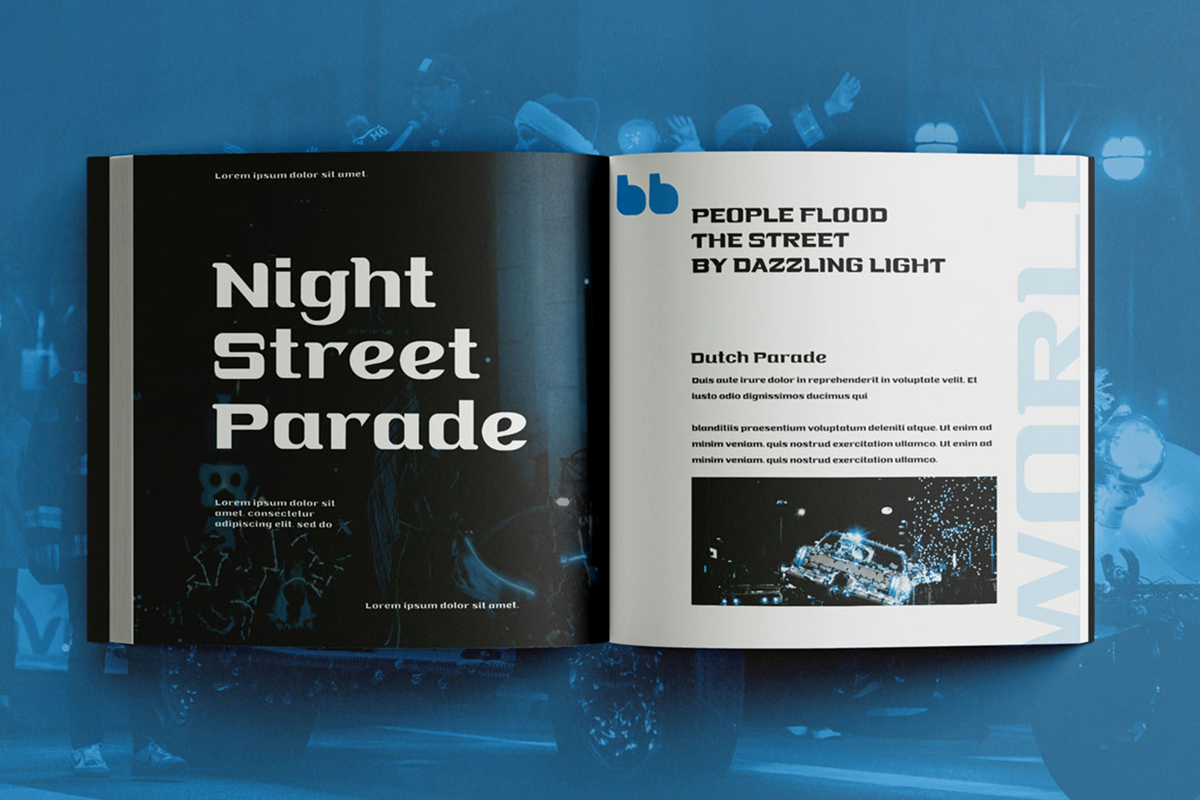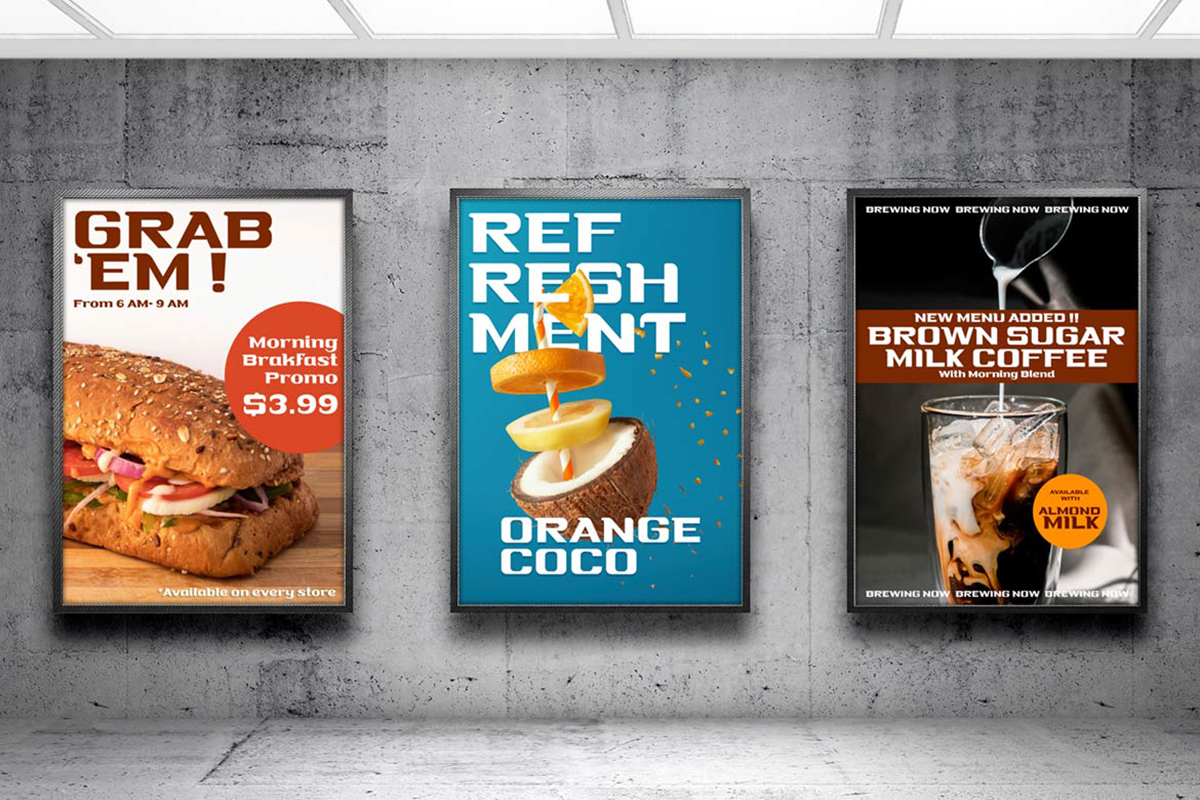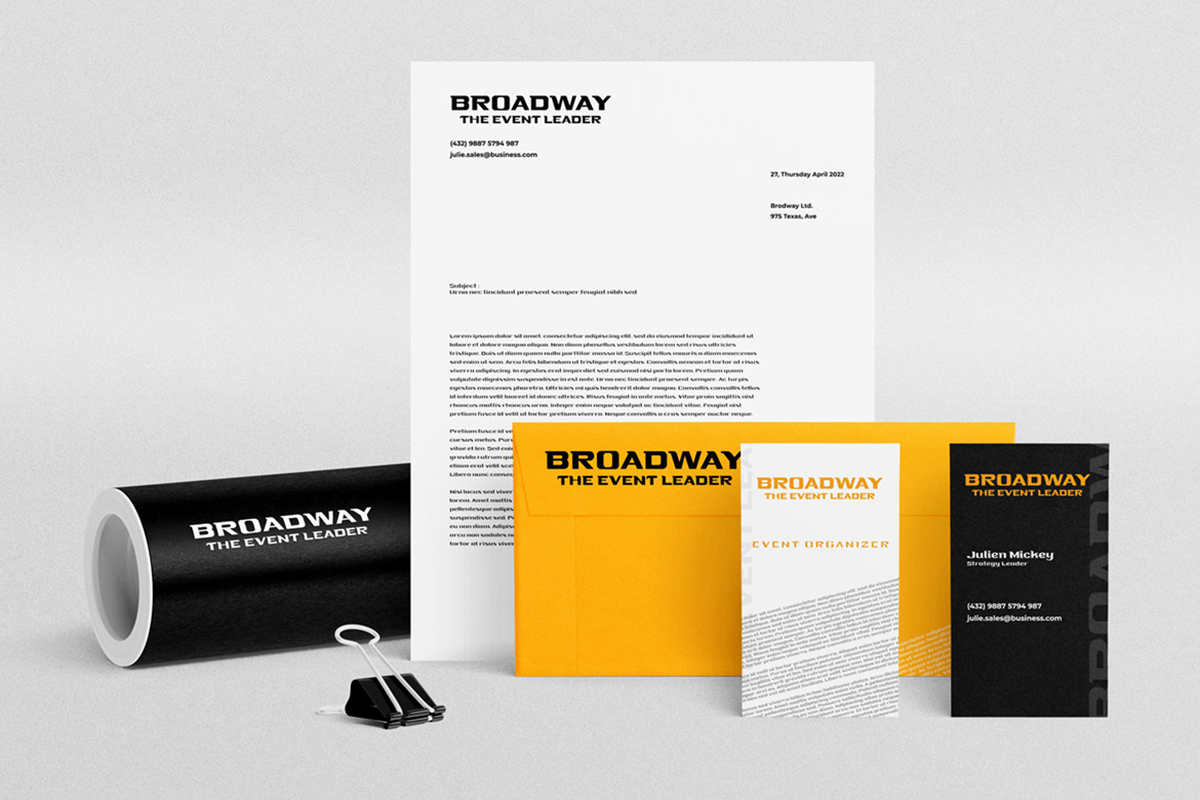
Segira Free Font
Introducing Segira Free Font – a captivating slab serif font exuding charm and sophistication, perfect for your specific projects. With each letter boasting a distinct shape, this font is a highly recommended choice for your major endeavors. Impress and captivate your audience with the striking graphic appearance that Segira brings to your project, earning you a wealth of positive feedback. Embrace the versatility of this font, equipped with various characters tailored for titles, subtitles, and body text. Your design projects are destined for perfection and uniqueness when adorned with Segira. Don’t miss the opportunity to elevate your work and make it truly extraordinary. This free typeface was designed by a talented Twin Letter. If you like it don’t forget to check out the full version.